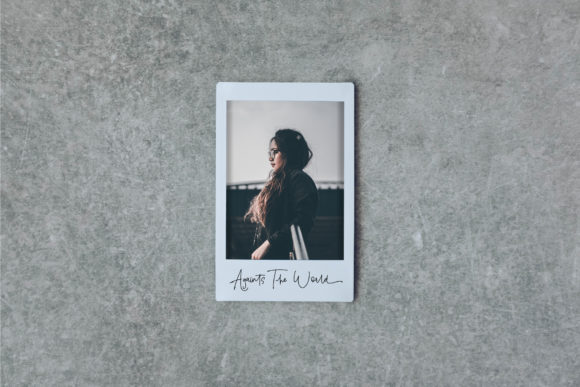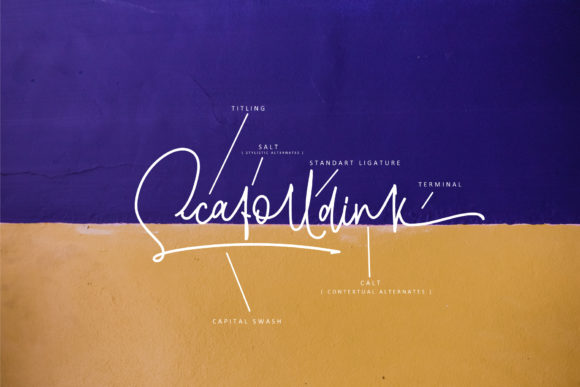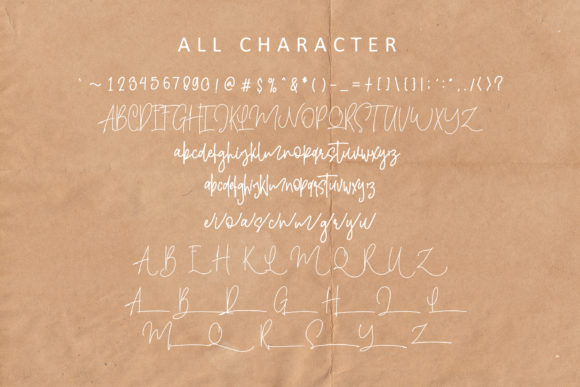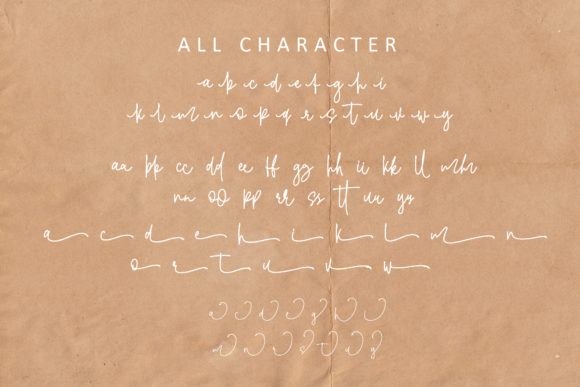
Yashintta Duo Font
About Yashintta Duo Font
Yashintta is a stunning, elegant and authentic handwritten font duo with a contemporary twist. It will elevate any creative project with its lovely charm.